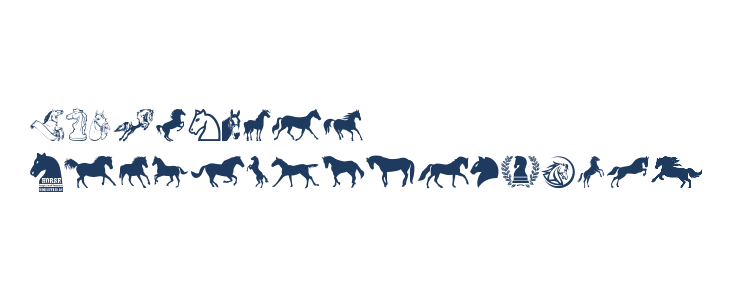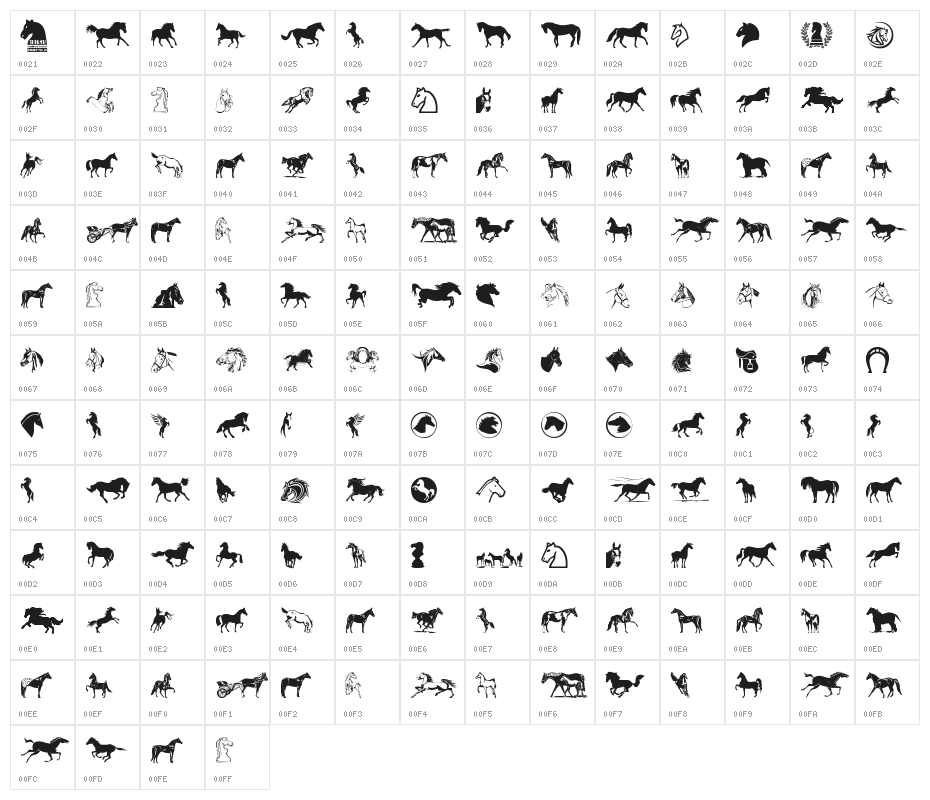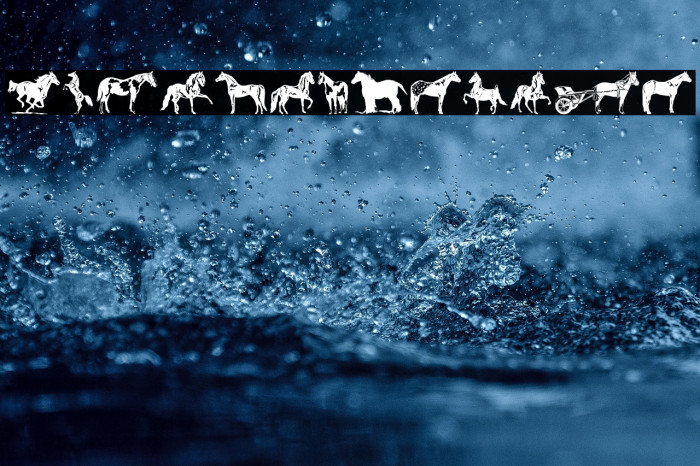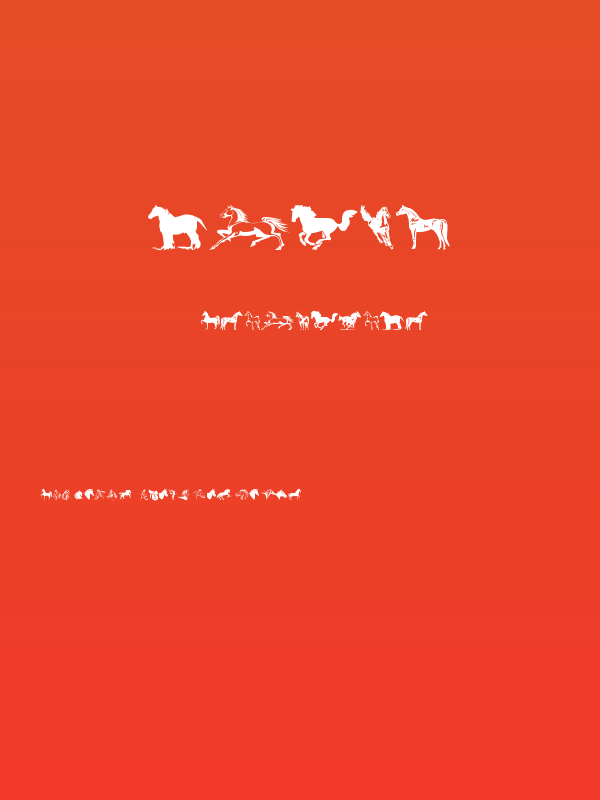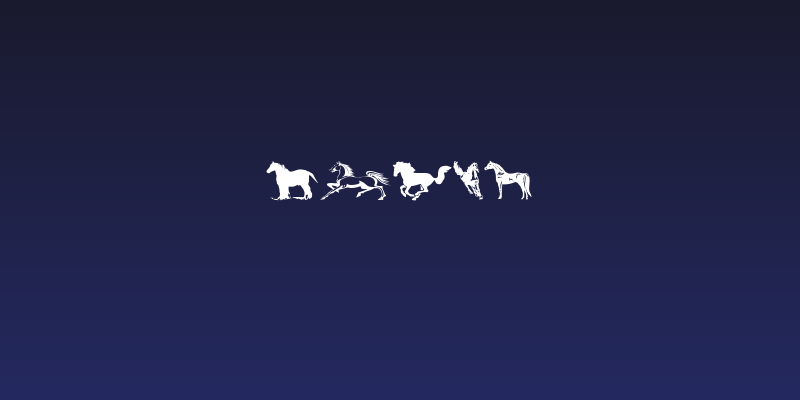
Horse Font
Horse Description
A collection of horse-themed pictograms and silhouettes, featuring various poses, heads, and stylized icons, including horses in motion, horse heads, saddles, horseshoes, and mythical winged horses. The designs range from detailed line art to bold, simplified silhouettes.
| Overall Style | Decorative, illustrative, thematic |
| Use Case | Logos, icons, decorative headings, branding, signage |
| Proposed Projects | Equestrian branding, event posters, logo design, childrenΓ’β¬β’s books, decorative signage, themed merchandise. |